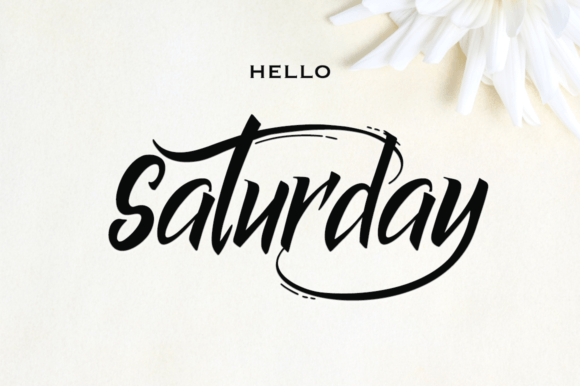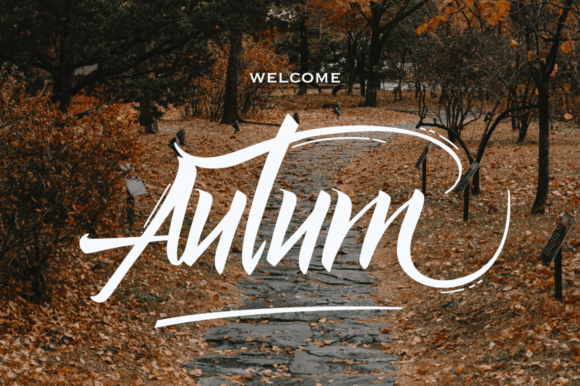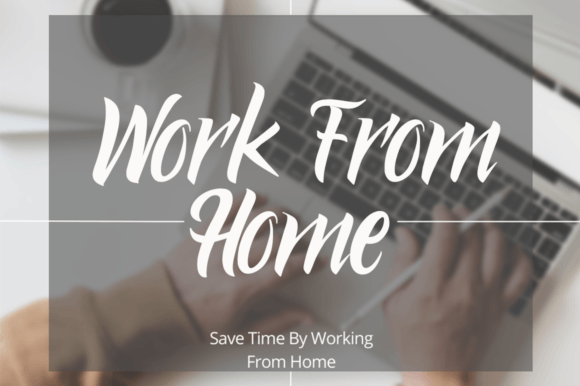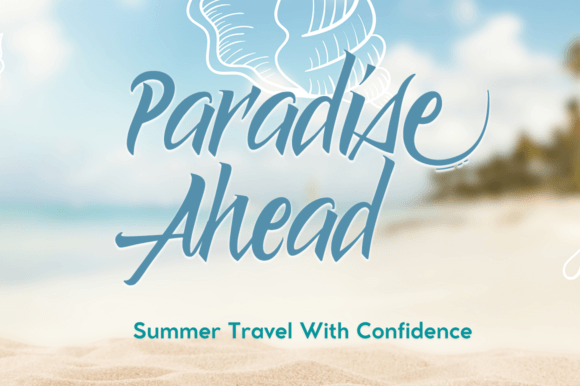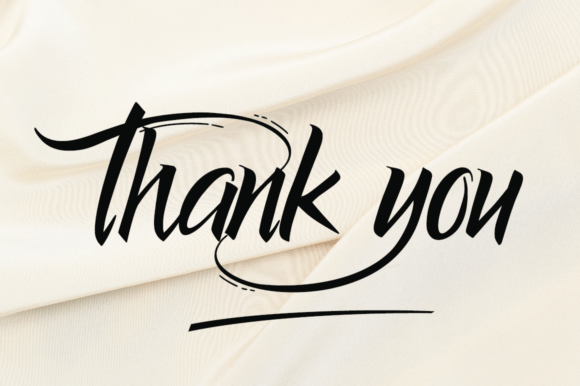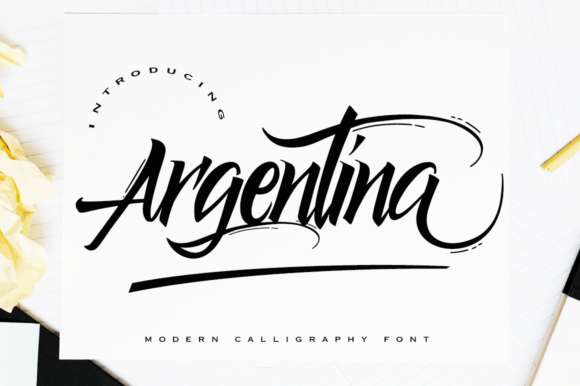
Discover the Elegance of Argentina Font: Elevate Your Designs to New Heights
Are you on the hunt for a font that exudes sophistication, elegance, and a touch of modern flair? Look no further than the Argentina Font, a stunning handwritten typeface that is sure to capture your heart. Designed with meticulous attention to detail, Argentina Font seamlessly blends classic calligraphic influences with a contemporary twist, making it the perfect addition to your design arsenal.
The Essence of Argentina Font
Argentina Font is more than just a typeface; it’s an exquisite piece of art that brings a level of refinement and poise to any project. Its classy, calligraphic roots are evident in its fluid strokes and elegant letterforms, yet it feels refreshingly modern and versatile. This unique combination makes Argentina Font an excellent choice for designers and crafters looking to add a touch of sophistication to their work.
Key Features of Argentina Font
- Handwritten Elegance: Each letter in Argentina Font is crafted with love and care, giving it a personal and intimate feel that is hard to replicate with standard fonts.
- Calligraphic Influences: The font’s calligraphic background gives it a luxurious and high-end feel, perfect for projects that require a bit of glamour.
- Contemporary Twist: Despite its classic influences, Argentina Font feels modern and relevant, making it suitable for a wide range of applications, from digital media to print.
- Versatility: Whether you’re working on a wedding invitation, a fashion brand’s logo, or a personal craft project, Argentina Font adapts beautifully, always bringing a level of elegance to the table.
Why Choose Argentina Font?
With so many fonts available, what sets Argentina Font apart? The answer lies in its ability to convey emotion and add a personal touch to your designs. In a digital world where uniformity can be the norm, Argentina Font stands out by offering a unique character that can make your projects feel more approachable and engaging.
Furthermore, Argentina Font is incredibly easy to use, making it accessible to both professional designers and hobbyists. Its clear and legible letterforms ensure that your message is communicated effectively, without sacrificing style for readability.
Using Argentina Font in Your Projects
The possibilities are endless when it comes to incorporating Argentina Font into your work. Here are a few ideas to get you started:
- Wedding and Event Planning: Add a touch of romance and sophistication to your wedding invitations, programs, and decorations.
- Fashion and Beauty: Elevate your brand’s visual identity with a logo or marketing materials that exude elegance and style.
- Stationery and Crafts: Personalize your journals, greeting cards, and DIY projects with a font that feels both luxurious and intimate.
- Digital Content: Stand out in the digital landscape with website headers, social media graphics, and email newsletters that showcase your unique voice.
| Font Name | Argentina Font |
| Author | cocodesign |
Argentina Font is a true gem in the world of typography, offering a perfect blend of classic elegance and modern flair. Its versatility, readability, and stunning design make it an invaluable tool for anyone looking to elevate their creative projects. Whether you’re a professional designer or a crafting enthusiast, Argentina Font is sure to become your new favorite companion in the world of design. So why wait? Fall in love with Argentina Font and bring your projects to the highest levels of creativity and sophistication.